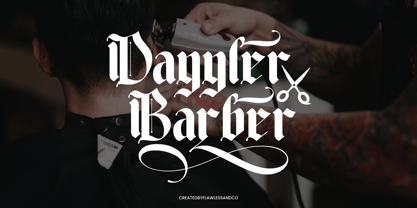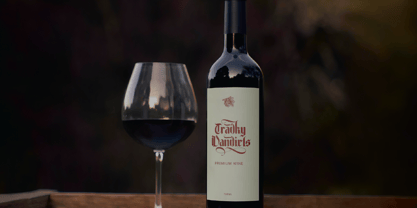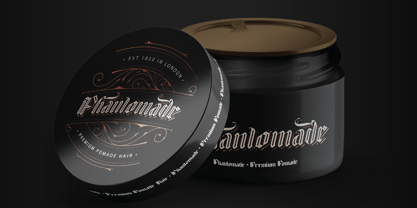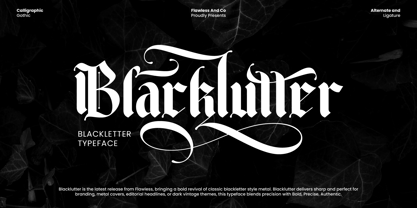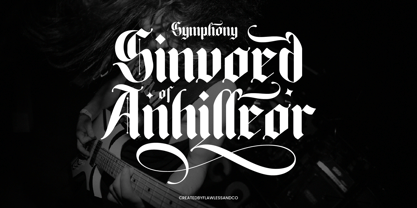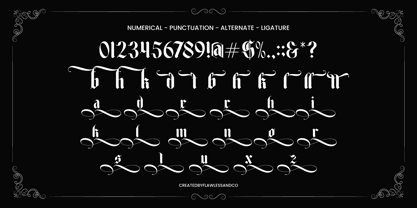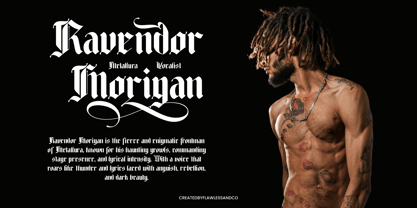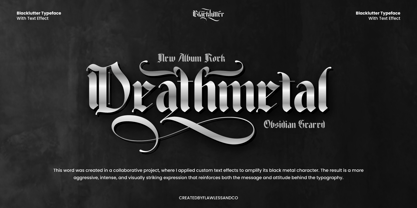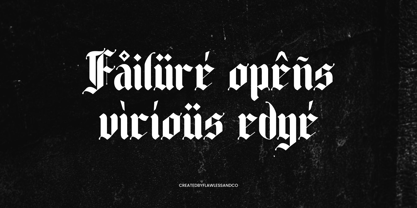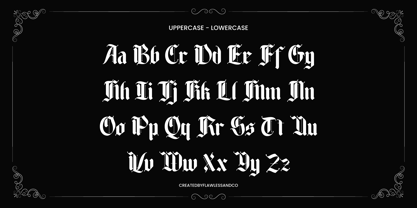
Blacklutter
The Blacklutter Font Family was designed by Achmad Yani and published by Flawlessandco. Blacklutter contains 1 styles. More about this family
Blacklutter is a bold and powerful blackletter typeface that combines traditional gothic style with a modern touch. Its sharp edges, dramatic strokes, and distinctive letterforms make it perfect for designs that demand strength, authority, and style. This typeface is ideal for branding, logos, posters, merchandise, album covers, apparel design, tattoo lettering, and more.
Features :
Multilingual, Uppercase alphabet A-Z, Lowercase alphabet a-z, Numbers 0-9, Some punctuation, Alternates & Ligatures